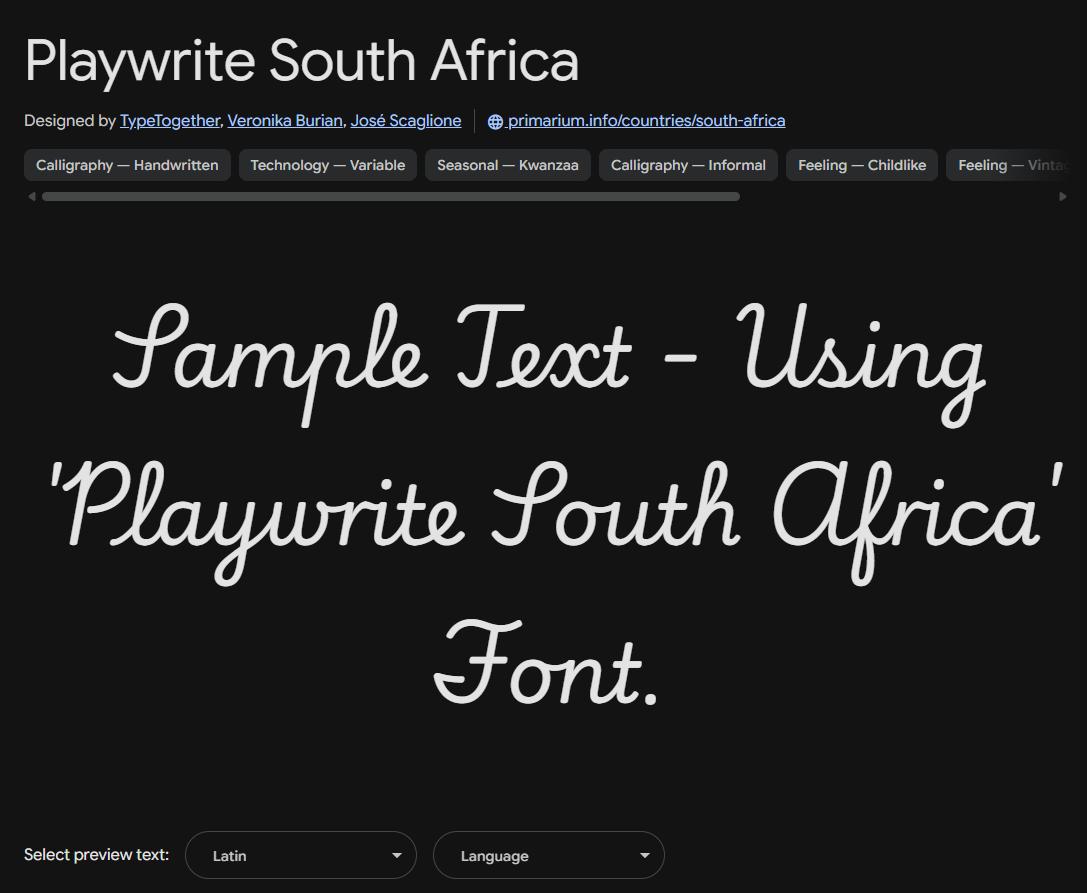
Playwrite South Africa, a specialized typeface engineered by TypeTogether's Veronika Burian and José Scaglione, serves as a pedagogical benchmark within the global Playwrite initiative by translating South African educational script standards into a high-performance variable font. Leveraging a single axis of interpolation-typically modulating weight-this font family utilizes precise stroke geometry and optimized vertical metrics to maintain legibility across the developmental spectrum of primary literacy. By integrating localized glyph variants and sophisticated OpenType features, the design ensures a seamless transition between print and joined cursive forms, offering a technically robust solution that harmonizes regional handwriting requirements with the fluid scalability of modern variable font technology.
The Playwrite South Africa font family represents a sophisticated intersection of pedagogical legacy and modern font engineering, utilizing variable technology to bridge the gap between traditional informal calligraphy and digital versatility. As a handwritten script rooted in regional South African primary education models, its typeface architecture captures a rugged yet happy essence, evoking a vintage, childlike nostalgia that feels inherently playful and organic. This variable font allows for seamless interpolation across weight axes, making it a semantically rich choice for seasonal Kwanzaa graphics that honor cultural heritage through a warm, humanistic lens. By blending high-level technical precision with an unrefined, informal calligraphic aesthetic, Playwrite South Africa transforms the rigid boundaries of digital typesetting into a fluid, expressive medium that resonates with the joyful spirit of both foundational learning and communal celebration.
While the Playwrite South Africa variable font, masterfully engineered by Veronika Burian and José Scaglione for TypeTogether, excels in primary education pedagogy through its authentic regional school-hand script, it remains fundamentally unsuitable for high-stakes financial reporting, pharmaceutical labeling, or technical aerospace documentation where rapid-fire legibility and cognitive load reduction are paramount. The typeface's specific cursive joins and instructional glyph structures-while pedagogically accurate to the South African curriculum-introduce complex silhouette variations and rhythmic inconsistencies that compromise the structural stability required for dense tabular data or micro-typography. Because its single-axis variability primarily manages slope rather than optimizing for optical sizing at small scale, the inherent stroke modulation and handwriting-inspired ligatures fail to provide the neutral x-height consistency and geometric rigor found in neo-grotesques, potentially leading to misinterpretation in sectors where the precise decoding of alphanumeric strings is a safety or legal requirement.
Playwrite South Africa features a flowing, cursive script style modeled after local educational standards for handwriting. The glyph construction utilizes continuous path geometry to mimic the rhythmic cadence of pen-on-paper kinetics.
This typeface excels in educational materials, primary school resources, and creative storytelling layouts. Its implementation in pedagogical UX design enhances cognitive mapping by aligning digital letterforms with regional musculoskeletal writing patterns.
The font family is typically provided as a variable font, offering a wide range of weights from ExtraLight to Regular. By utilizing the 'wght' axis in its OpenType variable table, designers can achieve precise optical weight balancing across diverse pixel densities.
The font is specifically engineered to reflect the specific cursive joining rules taught within the South African school curriculum. Advanced ligature substitution tables ensure that entry and exit strokes maintain topological continuity regardless of the neighboring character string.
Clean, geometric sans-serifs like Montserrat or Roboto provide a stable visual anchor when paired with this fluid script. Establishing a high x-height contrast between the primary sans and the script's descender-heavy profile optimizes the vertical rhythm of the composite layout.
The typeface is highly suitable for high-resolution print, maintaining smooth curves and sharp terminals at large scales. Vector-based Bézier pathing within the OTF file prevents rasterization artifacts, ensuring clean ink traps even at 1200 DPI output.
Legibility is maintained through generous counters and distinct character skeletons that prevent letter crowding. The font's vertical metrics include a balanced cap-height to x-height ratio, which minimizes the stroke-blurring effect often found in script families at sub-10pt sizes.
Playwrite South Africa includes various OpenType features such as stylistic sets and contextual alternates to vary the script's appearance. The 'calt' feature dynamically swaps glyphs based on neighboring characters to simulate the organic variation of human graphology.
It can be used effectively for branding projects that require an approachable, humanistic, and localized aesthetic. Its unique regional flair provides a distinct brand identity that leverages cultural semiotics to foster immediate consumer recognition within the South African market.
The stroke contrast remains relatively low and uniform to ensure consistent visibility across various screen technologies. This monolinear approach mitigates aliasing issues on low-PPI screens, maintaining a stable stem weight across the entire Unicode character set.